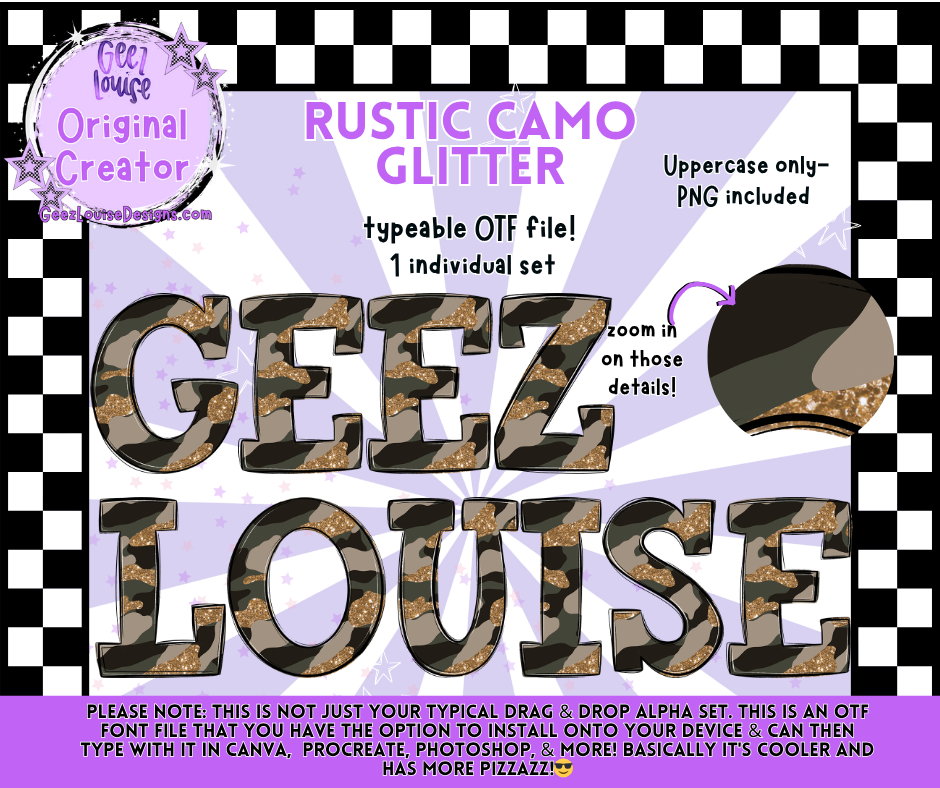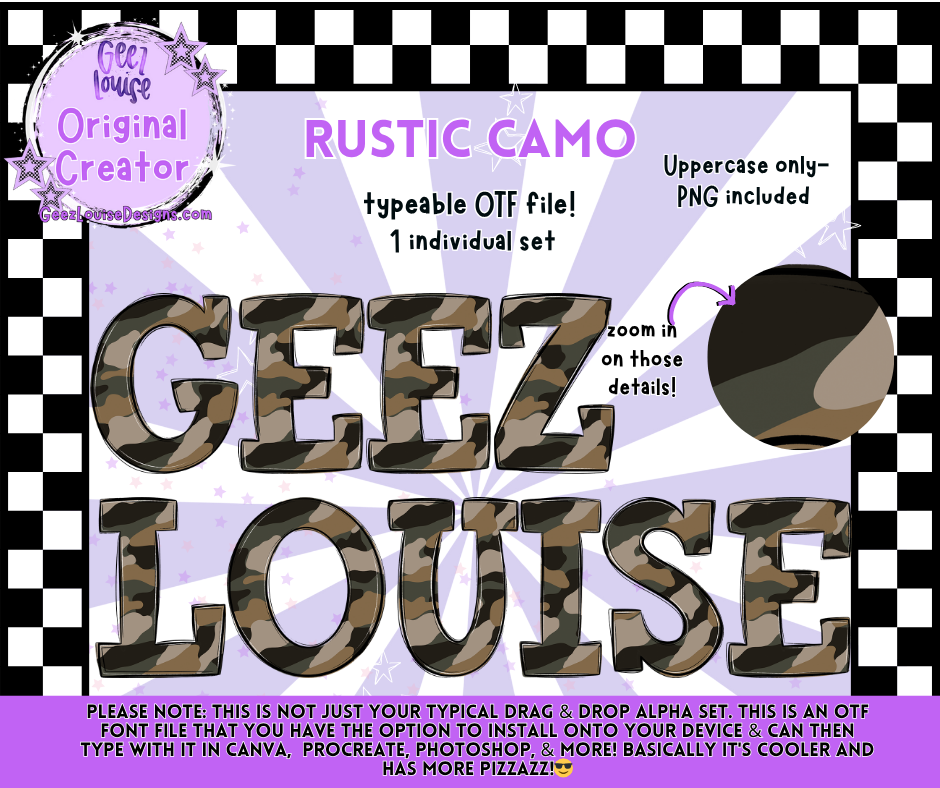
Rustic Camo Typeable OTF Font + PNG Set | Standard & Glitter Variants
Bring a rugged, down-to-earth feel to your designs with the Rustic Camo Typeable OTF Font Collection! 🪶✨
This duo gives you two bold options — a classic rustic camo and a camo with glitter accents for extra sparkle. Both are fully typeable OTF font files that install directly on your device, allowing you to type in Canva, Procreate, Photoshop, and more! Each uppercase letter features a detailed camouflage texture with that signature hand-drawn depth and edge.
Choose your vibe:
• 🌲 Rustic Camo: Natural camo tones for a clean, earthy look.
• ✨ Rustic Camo Glitter: Same camo style but topped with shimmering gold glitter accents for a glam twist.
Perfect for:
• Outdoorsy and adventure-inspired designs
• Military, hunting, or rustic graphics
• Farmhouse and southern-style apparel
• Bold, textured text for digital projects